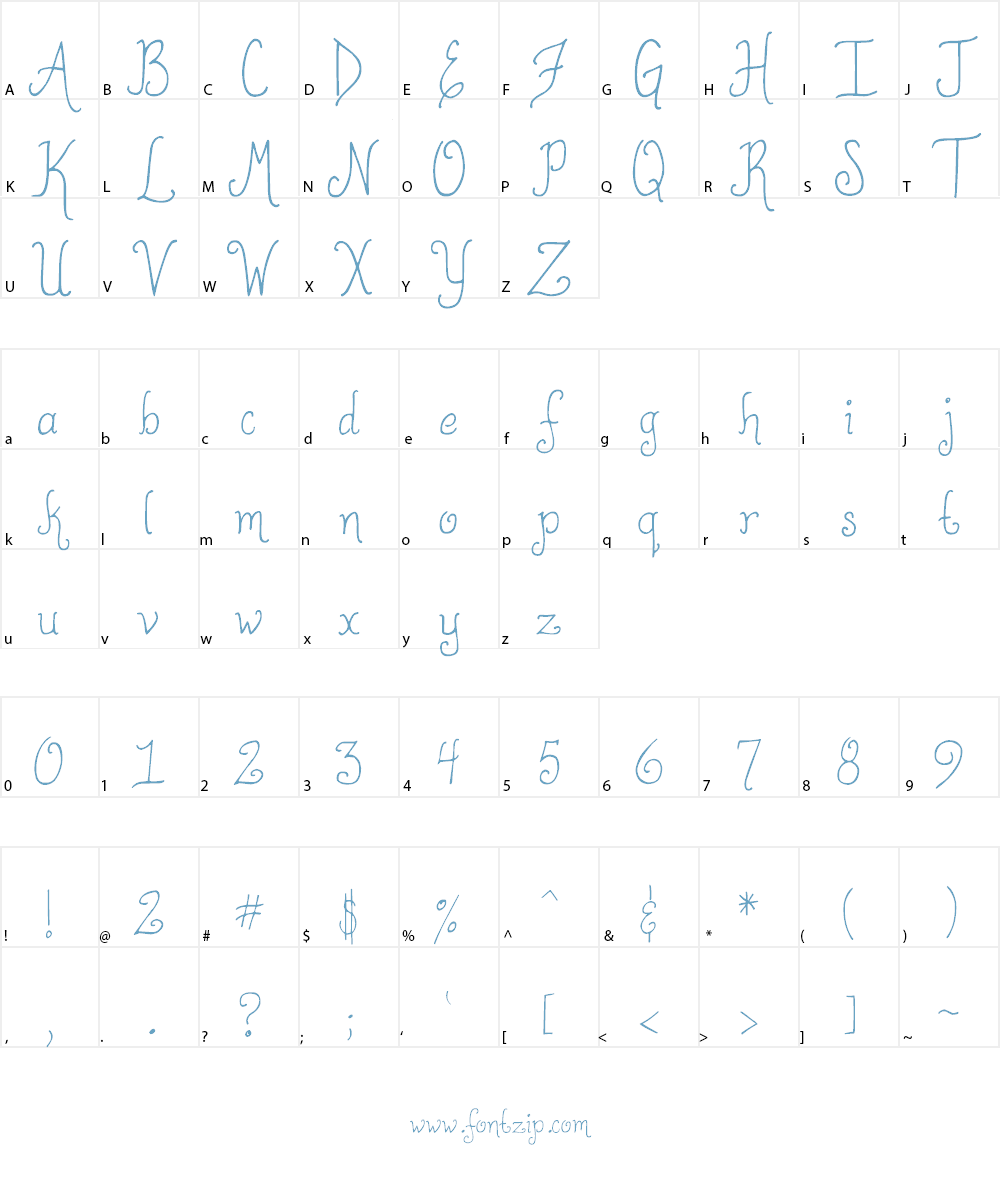
DJB Happily Ever After is a hand-drawn, ornate font couple. One font contains ornate capitals that can be used for Monograms or other decorative items, and the other contains a more straightforward fancy typeface.